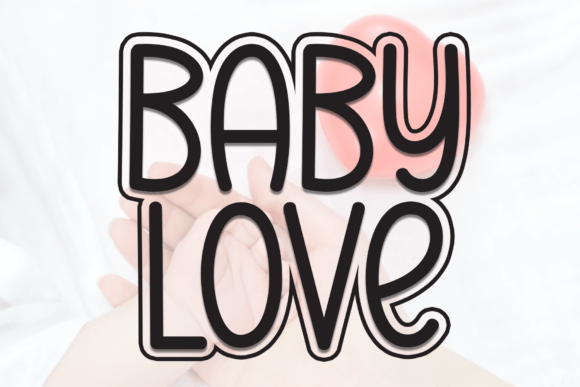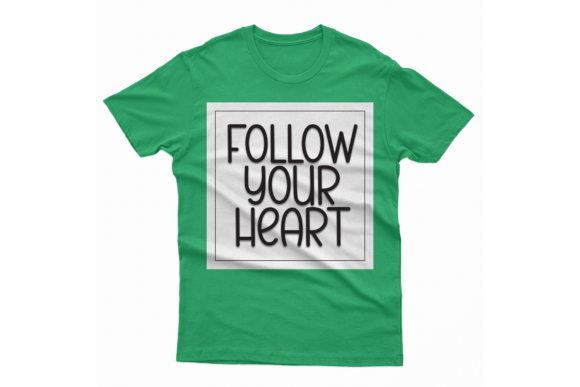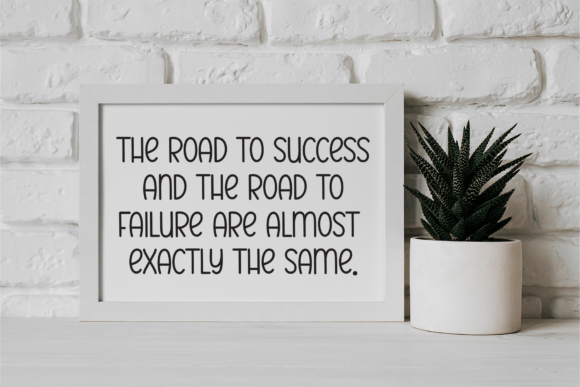
Baby Love Font
About the Baby Love Font
Explore the possibilities with Baby Love Font, a font that offers both beauty and functionality. Baby Love
is a soft and tender outline font designed to capture the innocence of childhood and the warmth of love. With its rounded corners and heartwarming charm, it’s ideal for baby products, nursery wall art, baby shower invites, and heartfelt projects. This font wraps every message in cuteness.
Its soft, rounded forms make Baby Love ideal for projects emphasizing gentleness and warmth, such as children’s books, greeting cards, or branding for baby products and nurseries. It excels in headlines, short quotes, and logos where its delicate outline creates a charming visual impact. However, its low x-height and thin strokes make it unsuitable for extended body text or UI elements where readability is paramount.
Pairing Baby Love with a clean sans-serif like Lato or Open Sans provides a strong contrast and enhances legibility in applications requiring both headline and body text. For a more playful feel, consider pairing it with a fun, rounded sans-serif like Bubblegum Sans. A classic serif like Garamond could add sophistication to projects where a touch of elegance is desired.
Baby Love’s overall personality is undeniably sweet and gentle, conveying a sense of innocence and affection. Its delicate nature makes it a perfect choice for brands targeting a young, family-oriented audience or projects communicating themes of love and childhood.
Baby Love Font Usage Examples
Baby Love Font Example